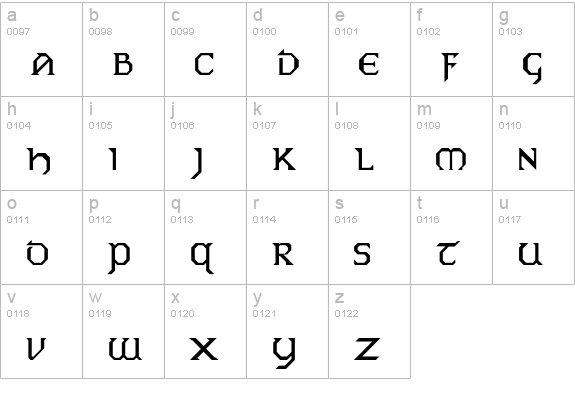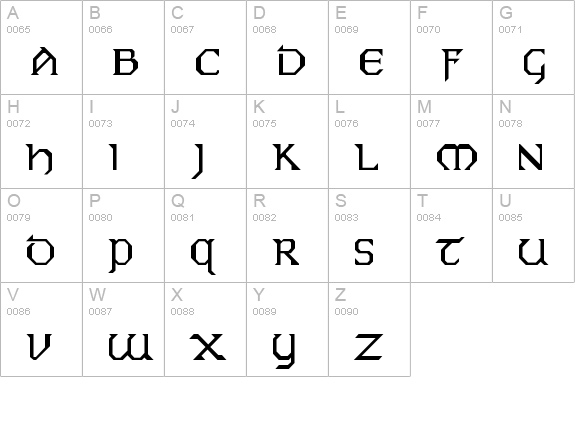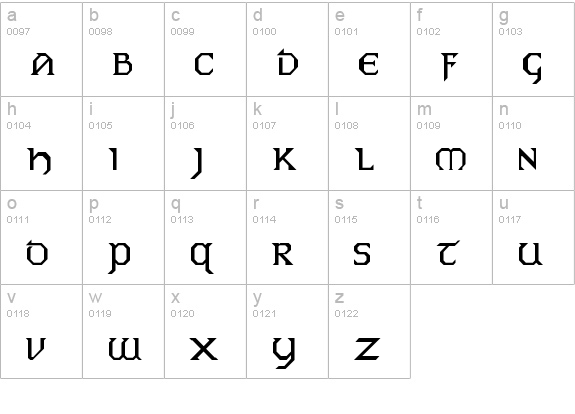
PCEire Font Details
PCEire font is a stylish and modern typeface that will add a touch of elegance to any design project. This versatile font boasts clean lines and a sleek aesthetic, making it suitable for a wide range of applications. With its unique and eye-catching letterforms, PCEire font is perfect for both print and digital design projects. Whether you're creating a logo, designing a website, or crafting a magazine layout, this font will help you make a bold statement. One of the best things about PCEire font is that it is available for free. That's right, you can download this fantastic font without spending a penny. Simply head over to FontsMarket.com, where you can easily and freely access the PCEire font and add it to your font library. This font comes in a variety of weights, allowing you to experiment and find the perfect fit for your project. From thin and delicate to bold and impactful, PCEire font offers a wide range of options to suit your design needs. Not only is PCEire font visually appealing, but it also offers excellent readability. Each letter is carefully crafted to ensure optimal legibility, even at small sizes. This makes it a great choice for body text in presentations, brochures, and other printed materials. Whether you're a professional designer or a hobbyist, PCEire font is a must-have in your collection. Its timeless appeal and versatile nature make it a go-to choice for creating stunning visual compositions. So why wait? Discover the endless possibilities that PCEire font offers and download it for free at FontsMarket.com. Elevate your designs with this exceptional typeface and make a lasting impression.